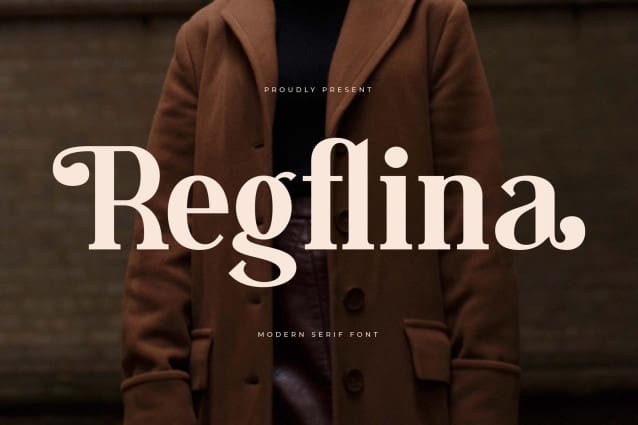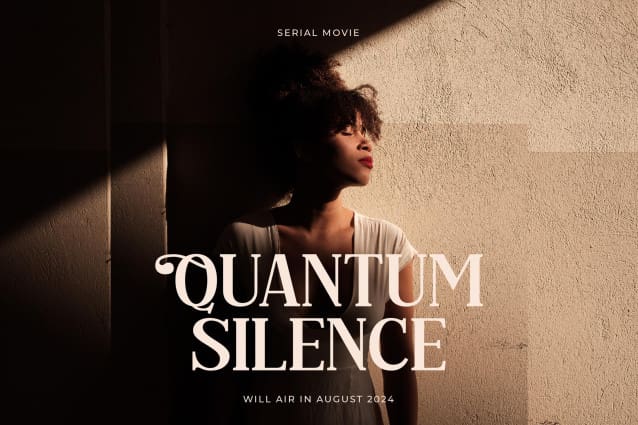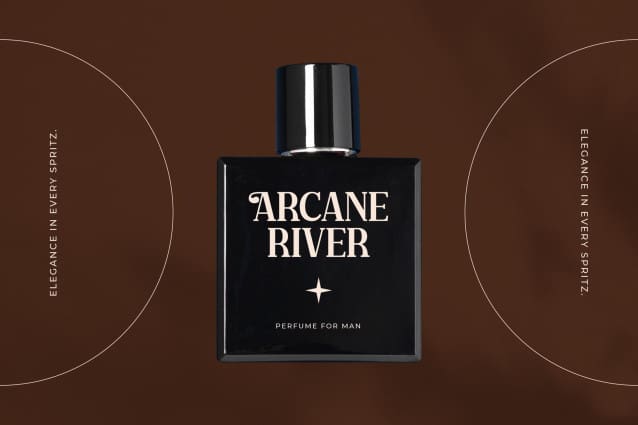
Regflina Font
Regflina Font – Modern Serif Font , from Letterena, is a Luxury Serif font, suitable for any projects such as: logos, branding projects, homeware designs, product packaging, mugs, quotes, posters, shopping bags, t-shirts, book covers, name card, invitation cards, greeting cards, label, photography, watermark, special events, and all your other luxury and beautiful projects that need a Luxury Serif taste.